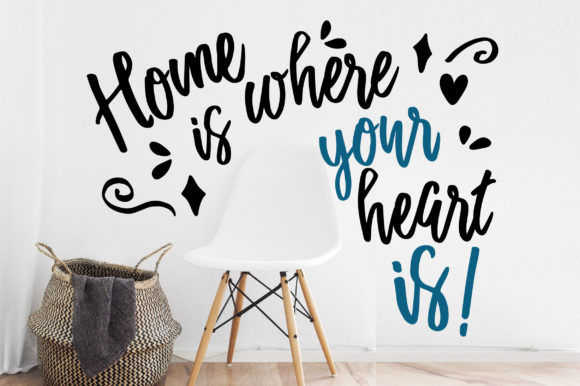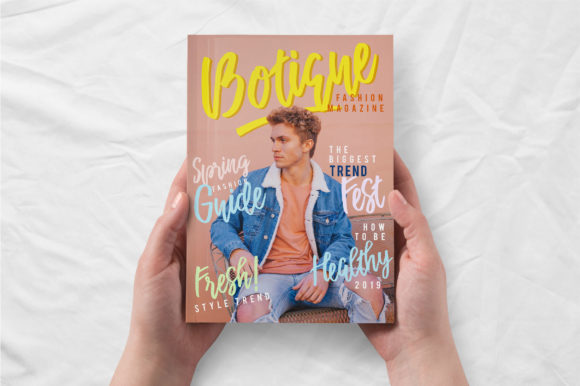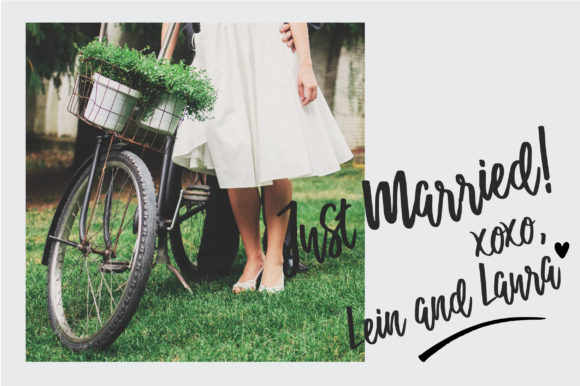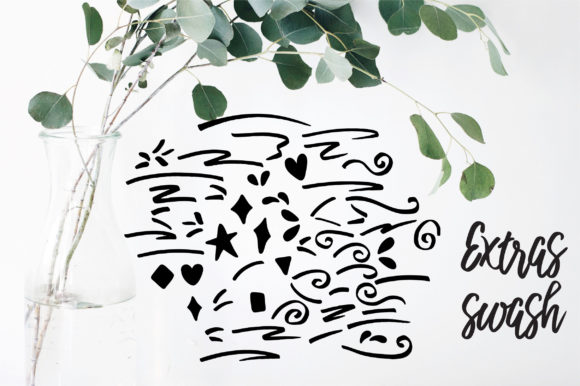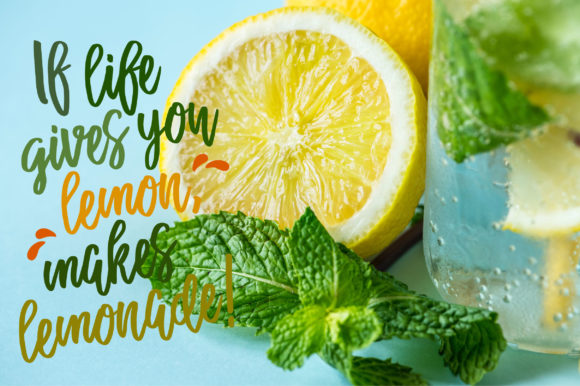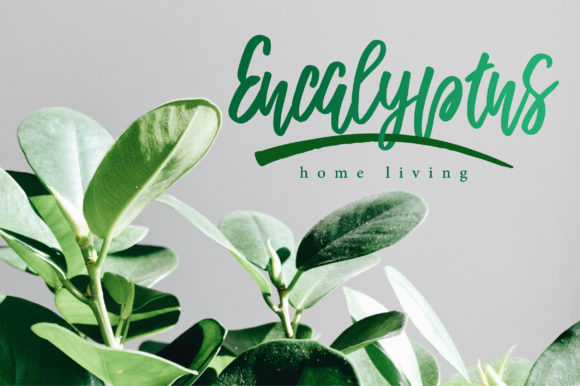
Introduction to Romantica Script Font
Have you ever been working on a creative project and suddenly, you’re stuck on finding the perfect font to convey the emotions you’re trying to express? That was me, a few days ago, as I was designing a poster for a romantic comedy movie. I wanted the title to exude a sense of elegance and sophistication, but nothing seemed to fit. That’s when I stumbled upon the Romantica Script Font – a modern script font that has been a game-changer for designers like me.
The Romantica Script Font is a high-quality design resource that offers a feminine and elegant feel, making it perfect for titles, posters, quotes, and much more. With its beautiful and flowing lines, this font is sure to add a touch of romance to any creative project. And the best part? It’s available for free download, complete with a transparent background, making it easy to use in any design.
Key Features of Romantica Script Font
- High-quality, elegant script font perfect for creative projects that require a touch of romance and sophistication.
- Designed to be highly legible, with a clear and readable script that’s perfect for invitations, wedding stationery, and other romantic designs.
Honest Review: Romantica Script Font
I recently stumbled upon the Romantica Script Font while searching for the perfect design resource for my upcoming creative project. I was excited to give it a try, and I must say, it did not disappoint.
What works well: ✨ The Romantica Script Font is a high-quality, elegant script font that adds a touch of sophistication to any design. The font is available for free download, making it a great resource for designers on a budget. I also appreciate the transparent background option, which allows for seamless integration with any background image.
- High-quality font with a professional look and feel
- Transparent background option for easy integration with background images
Limitations: ⚠️ While the Romantica Script Font is a great resource, I did find it to be a bit limited in terms of customization options. Additionally, the font may not be suitable for use in small text sizes, as it can become difficult to read.
Overall, I’m impressed with the Romantica Script Font and would definitely recommend it to designers looking for a high-quality, elegant script font for their creative projects.
Tips for Getting the Most Out of Romantica Script Font
Use Romantica Script Font in your creative project to add a touch of elegance and sophistication.
With a transparent background, you can easily combine Romantica Script Font with other design elements.
Use Romantica Script Font in your wedding invitations, announcements, or greeting cards.
Apply it to your branding materials, such as logos or business cards.
Experiment with Romantica Script Font in your social media graphics or advertising campaigns.